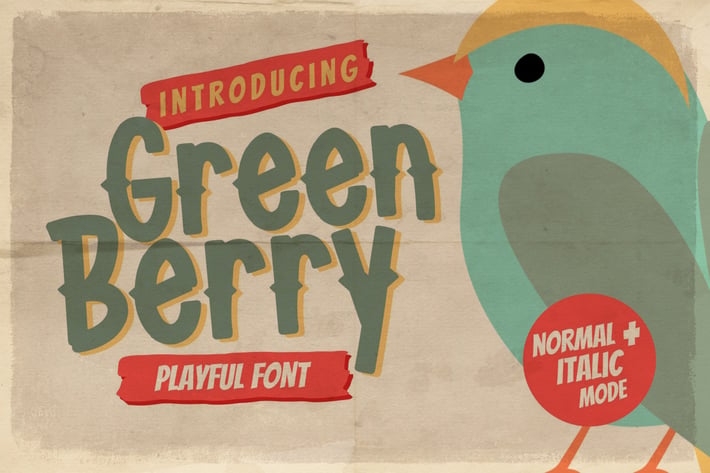
AN Green Berry - Unique Playful Font
Introducing of our new product Green Berry. It is a unique font and also has vintage display font.
Can make it easier to convey the message in your design. Use for awesome display, labeling, clothing, movie sceen, poster, movie title, gigs, album covers, logos, and much more.
+ Standard and italic glyphs
+ Multilingual